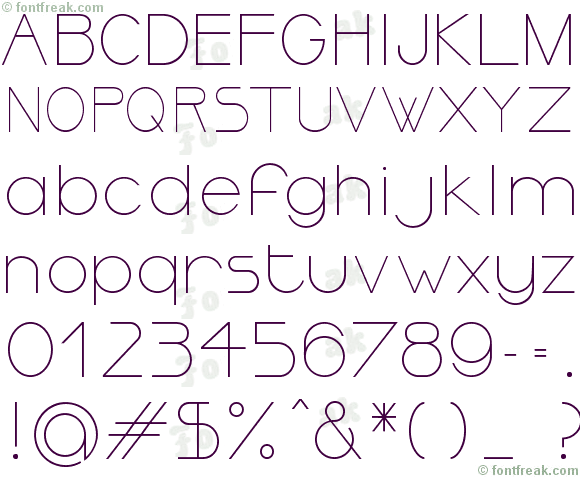
OrmontOutline
OrmontLight
OrmontOutline is a striking display font designed by Youssef Habchi, falling under the decorative category. This unique typeface features an outline style that brings a playful yet sophisticated charm to any design project. The strokes are consistently weighted, creating a balanced appearance while the open counters enhance readability. The font showcases a minimalist elegance with its crisp lines and rounded edges, making it visually appealing and versatile.
Ideal for various applications, the OrmontOutline font free download provides designers with a tool perfect for crafting eye-catching wedding invitations, dynamic movie posters, and trendy restaurant menus. Its playful yet professional aesthetic allows it to shine in branding projects, making it an excellent choice for logos and promotional materials. Small business owners and content creators will find this font particularly useful for creating engaging social media graphics and website headers, where first impressions are vital.
The target audience for the OrmontOutline font includes graphic designers looking to elevate their projects, small business owners aiming for a distinctive brand identity, and content creators in need of a fresh, modern typeface. This font stands out not only due to its unique outline design but also because it captures attention without overwhelming the viewer. Its stylish simplicity makes it a versatile addition to any designer's toolkit, ensuring that it can adapt to a variety of themes and concepts. Whether you're working on a contemporary design or a classic layout, OrmontOutline brings a touch of creativity and individuality, making it a must-have for anyone seeking to make an impact with their typography choices.